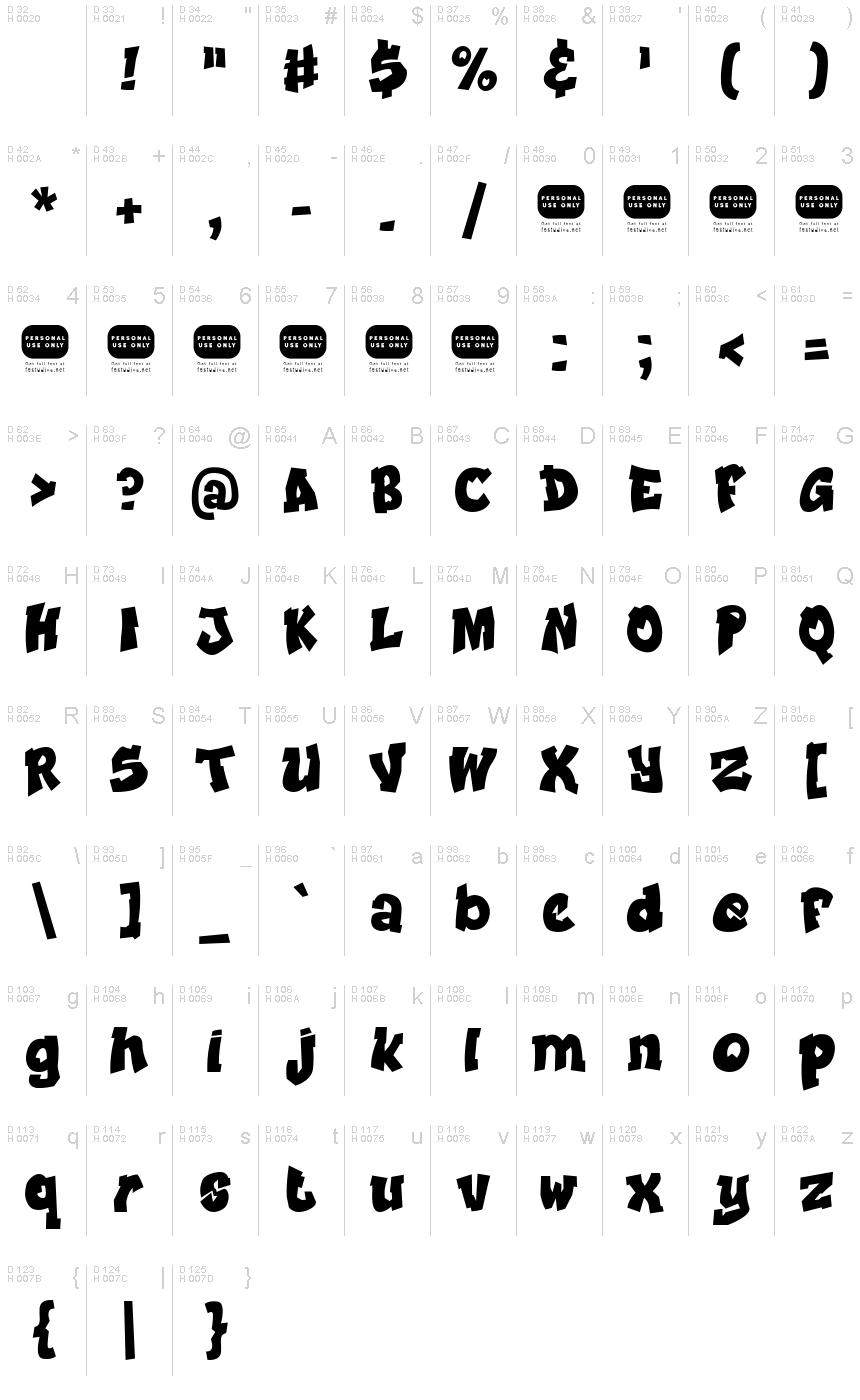
Prince
Prince is a captivating graffiti-inspired font created by FG Studios. Its bold, dynamic strokes and angular forms evoke a sense of urban energy and raw expressiveness. The font's distinct character and unconventional aesthetic make it a striking choice for projects seeking a visually impactful, unconventional look.
This versatile font lends itself well to a variety of design applications, from bold headlines and attention-grabbing logos to gritty, streetwear-inspired branding. Its powerful visual presence can elevate packaging, posters, and digital designs, adding an edgy, rebellious flair that commands attention. Ultimately, Prince is a font that empowers designers to make a bold statement and leave a lasting impression.